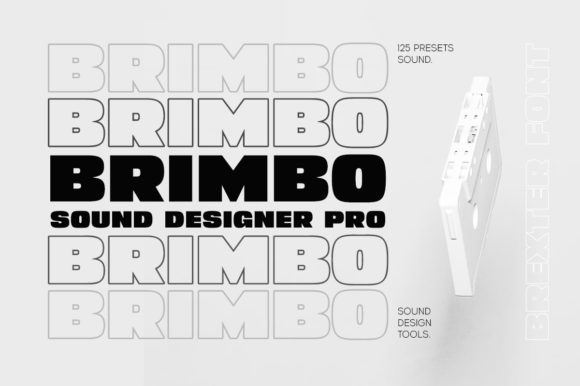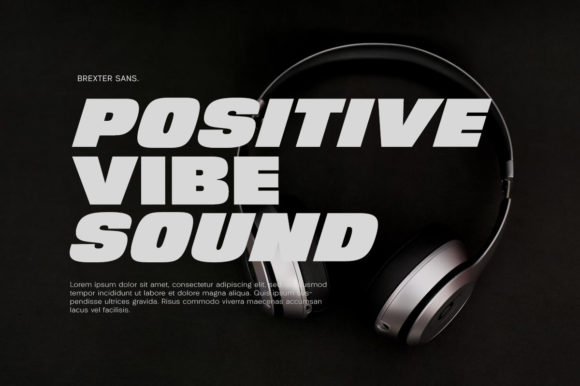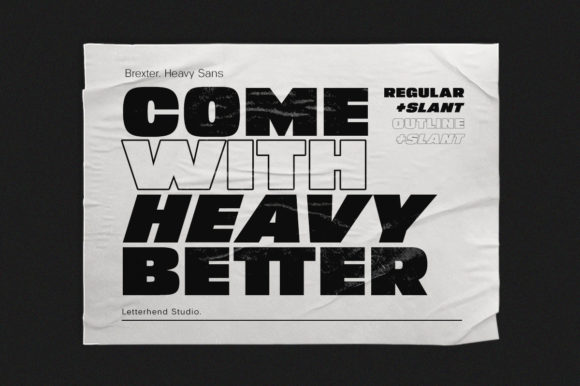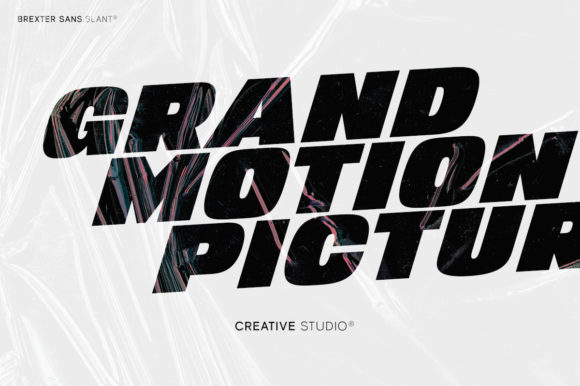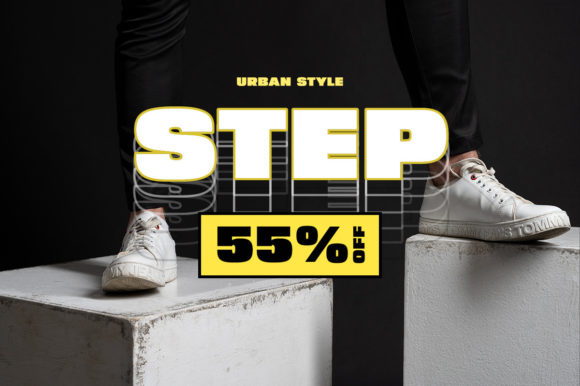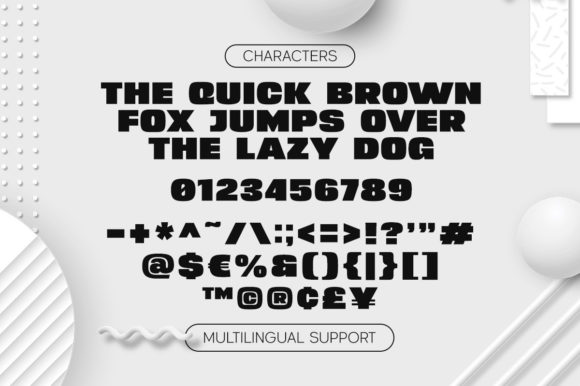
Introduction to Brexter Font
Brexter is a bold, thick lettered and cool display font.
Whether youโre using it for crafting, digital designing, presentations or greeting cards making, itโs perfect .
Key Features of Brexter Font
Why Choose Brexter Font?
Brexter Font offers exceptional quality and versatility, making it a valuable addition to your design toolkit. Whether you’re creating for personal projects or commercial use, Brexter Font delivers professional results.